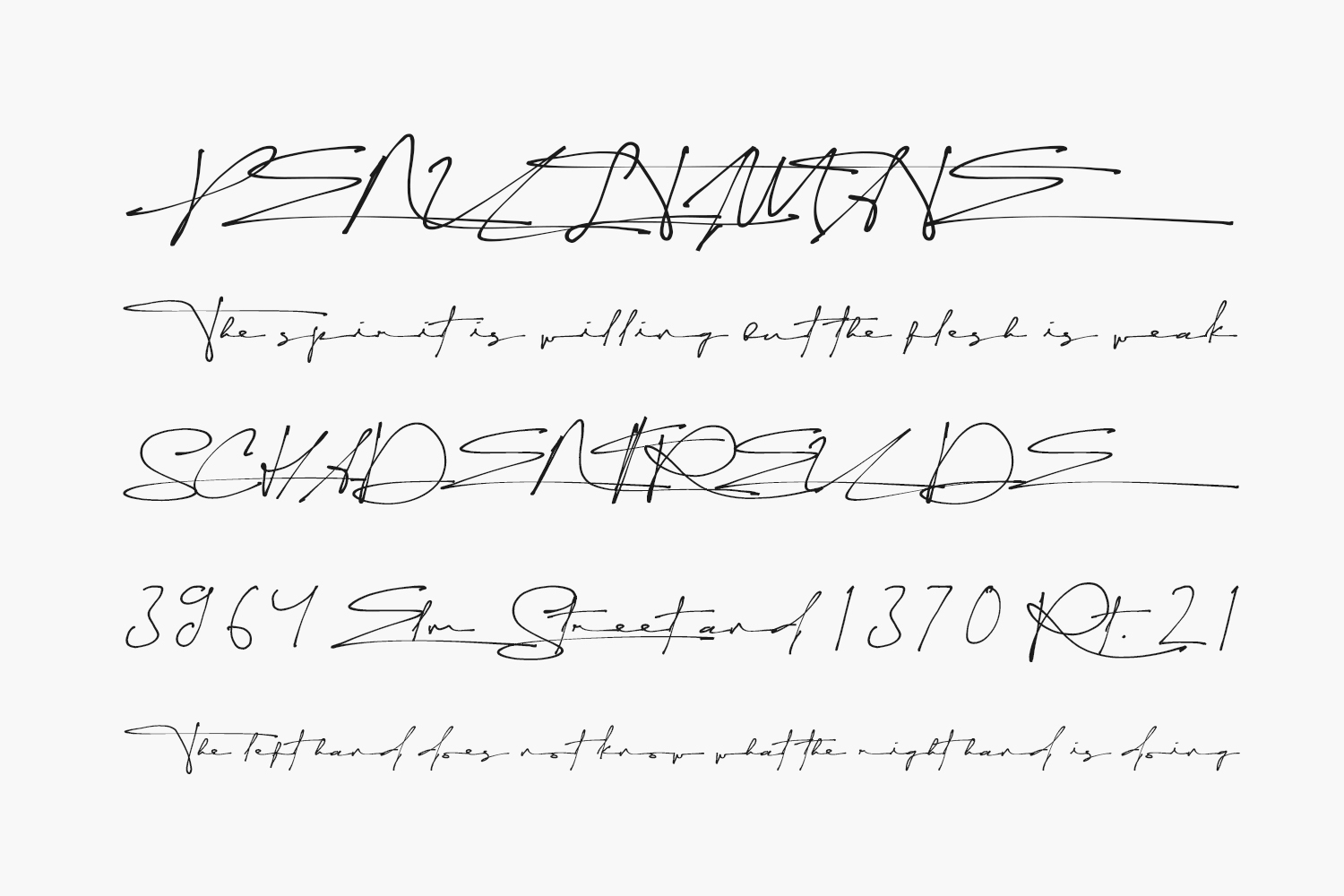
Southera Free Font is a stylish and delicate font. It has a clean, thin, and smooth vibe and it will be a hit for any design that you want to add it to. Southera Free Font was designed by Mozyen Studio and is free for personal use only. Please purchase the full version for commercial use.